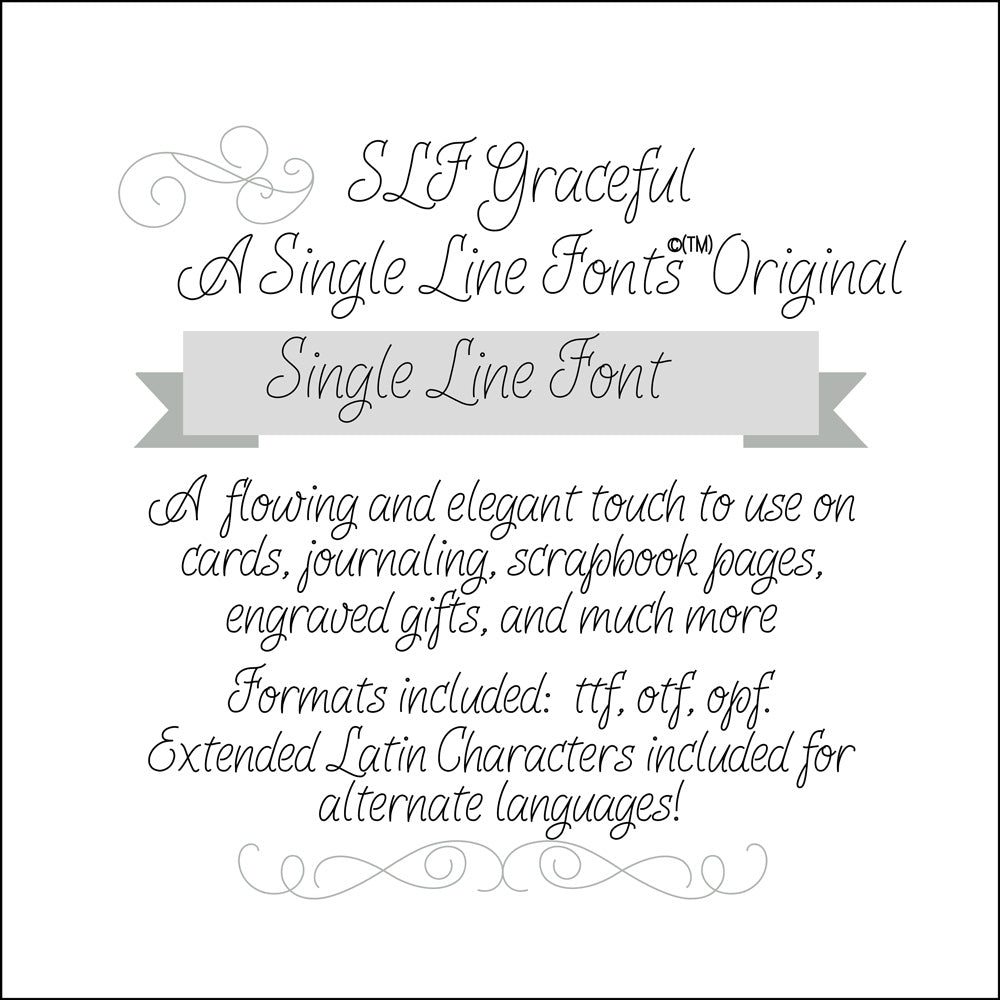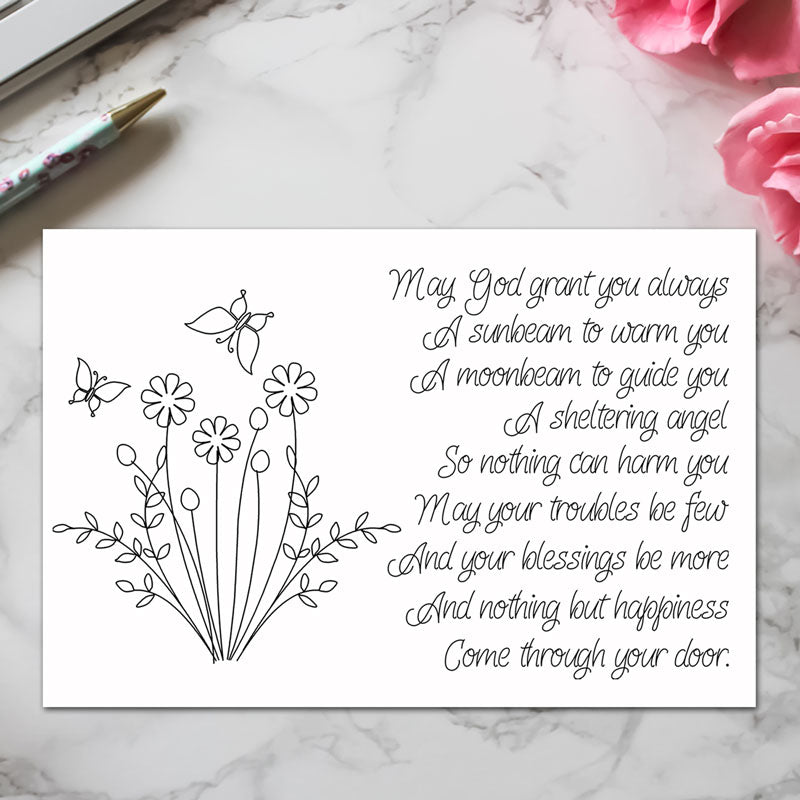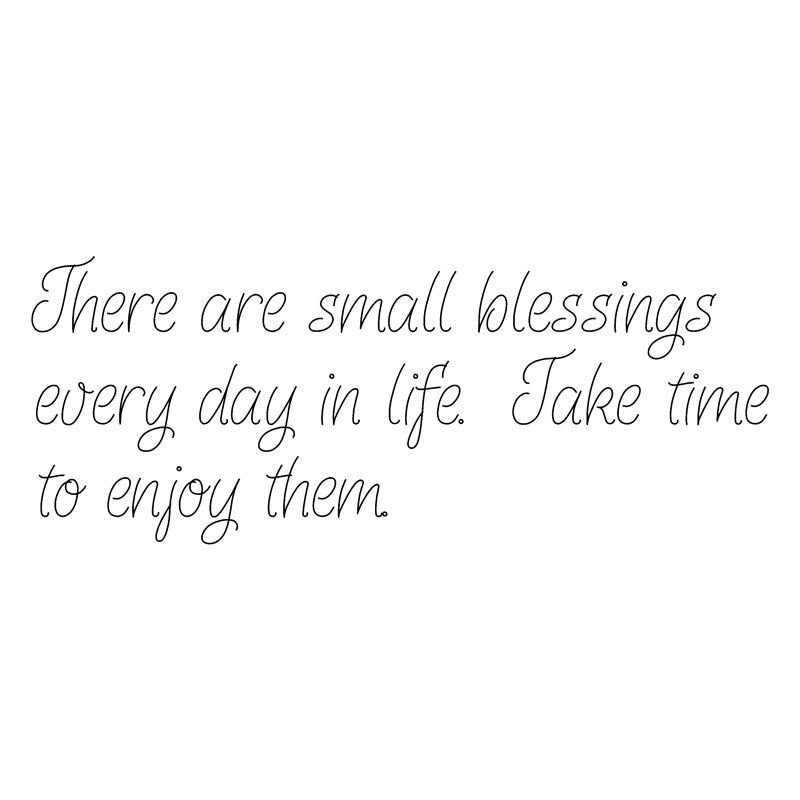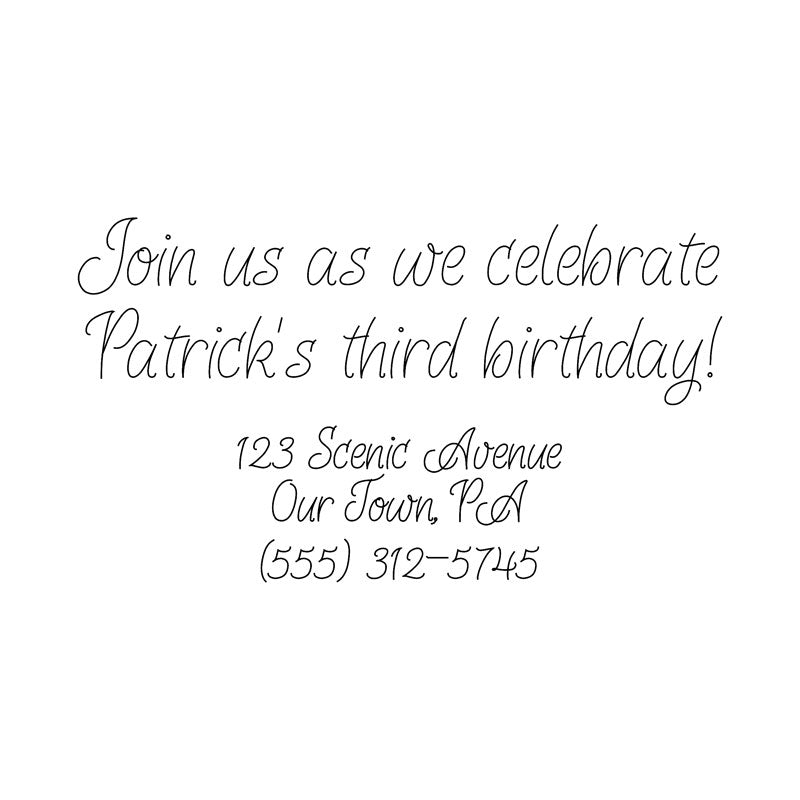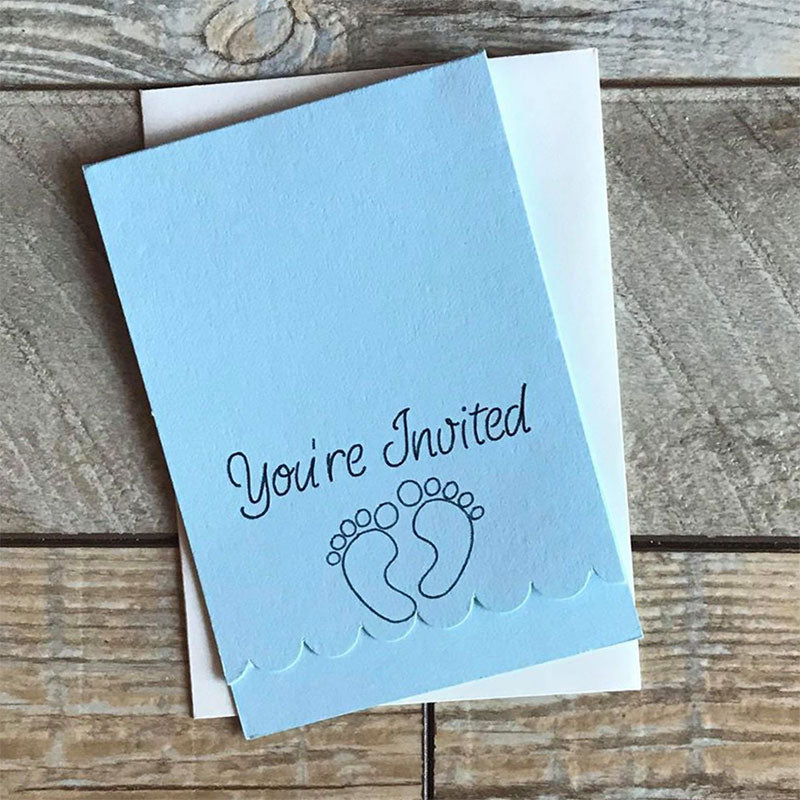
This is where it all started.
Single Line Fonts©(TM) debuted this as our first font in 2019. SLF Graceful lends a flowing and elegant touch to use on cards, journaling, scrapbook pages, engraved gifts, and much more.
NEW - this font includes a printable version for Word and similar programs. It is slightly thickened so that it may be readable, but still looks very "monoline" on the printed page. I hope you enjoy this added bonus version!
Regular width (Thick Font) Version: thickened slightly so that it can be used in word processing and similar documents for printing.